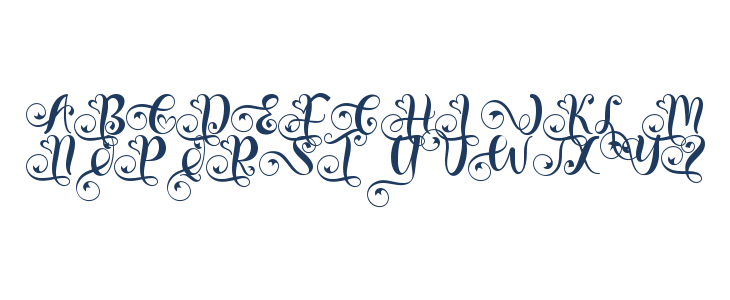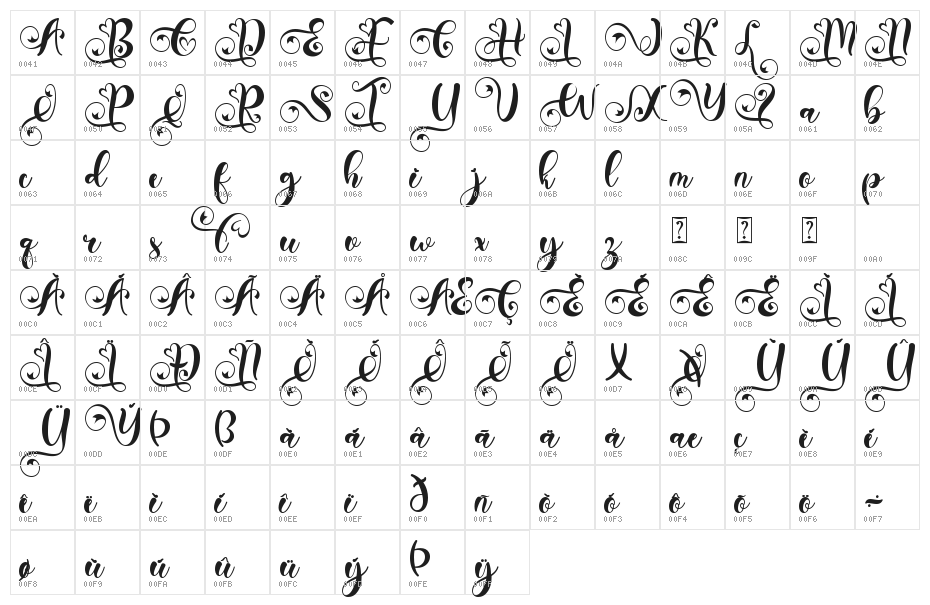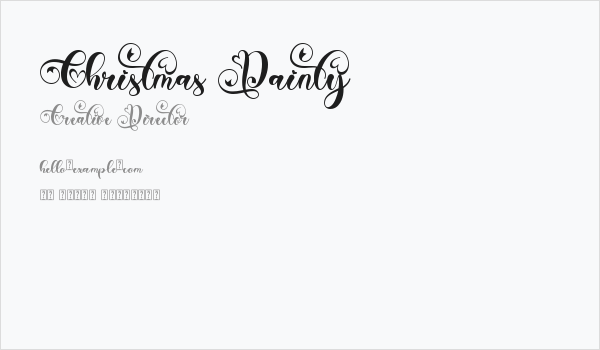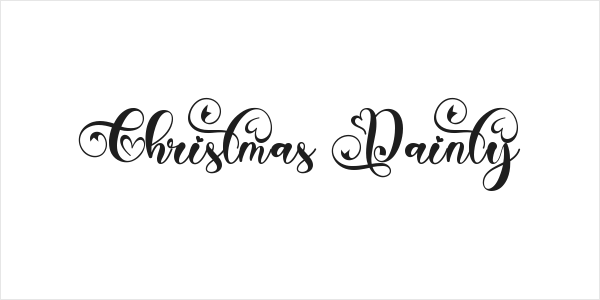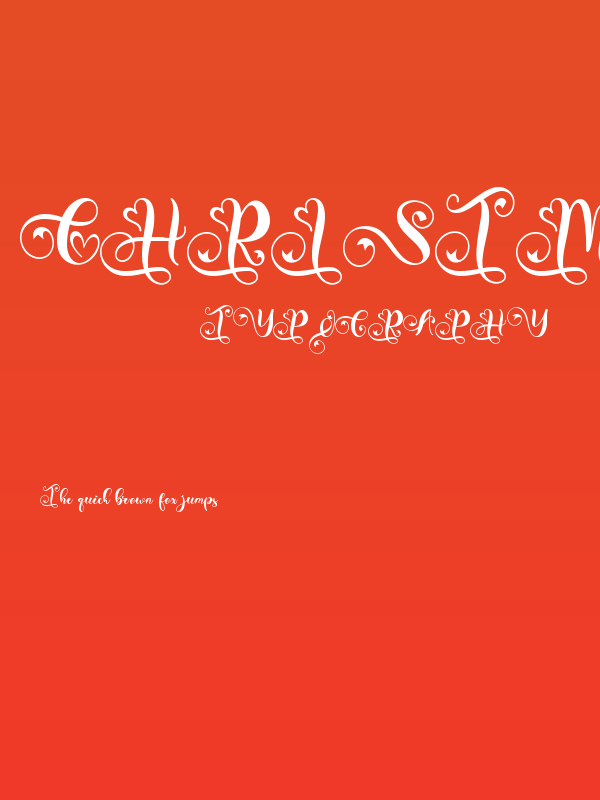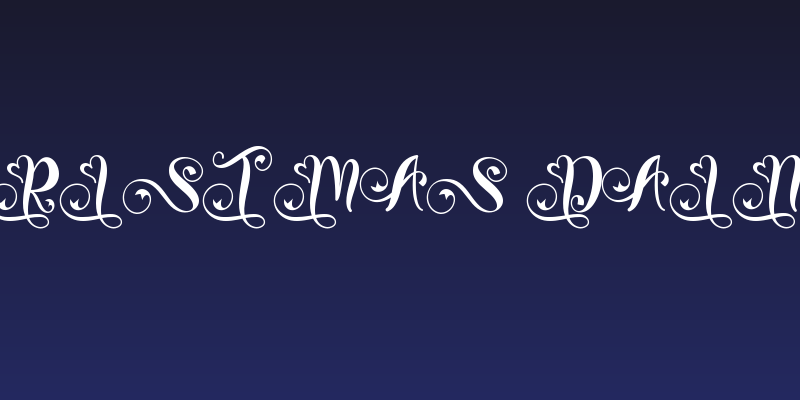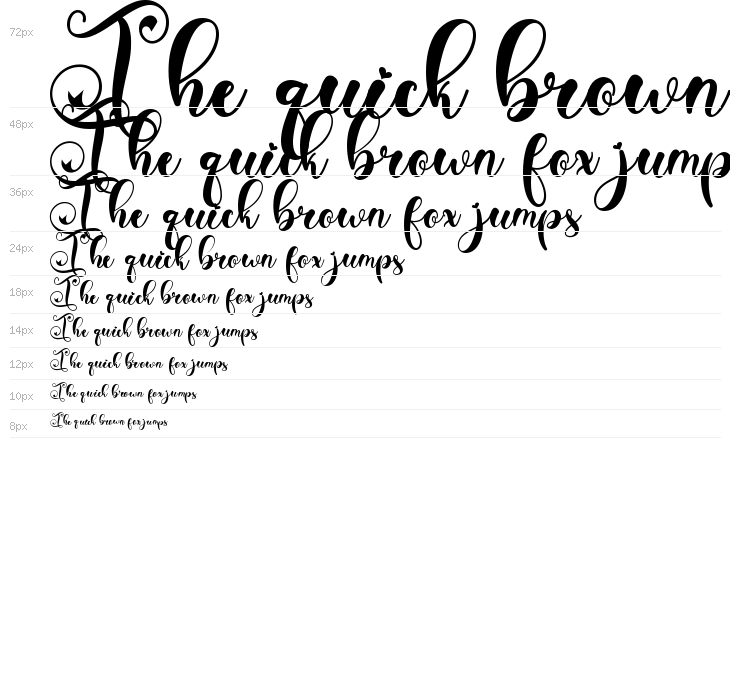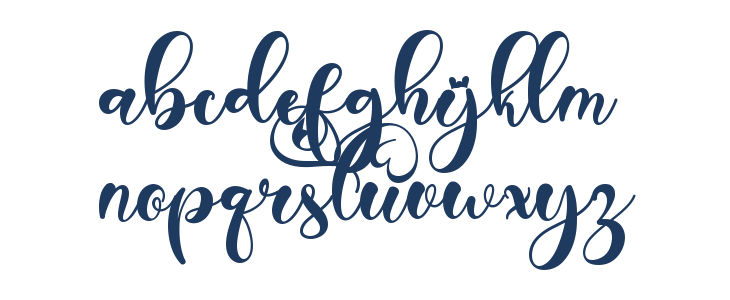
Christmas Dainty Font
Christmas Dainty Description
A decorative script font with elaborate swirls and flourishes on both uppercase and lowercase letters, featuring high contrast between thick and thin strokes. The uppercase set is ornate and whimsical, while the lowercase is bold and flowing, with exaggerated ascenders and descenders.
| Overall Style | Decorative, Festive, Whimsical |
| Use Case | Headlines, Invitations, Logos, Decorative text |
| Proposed Projects | Holiday cards, festive invitations, branding for seasonal products, decorative headlines, event signage. |